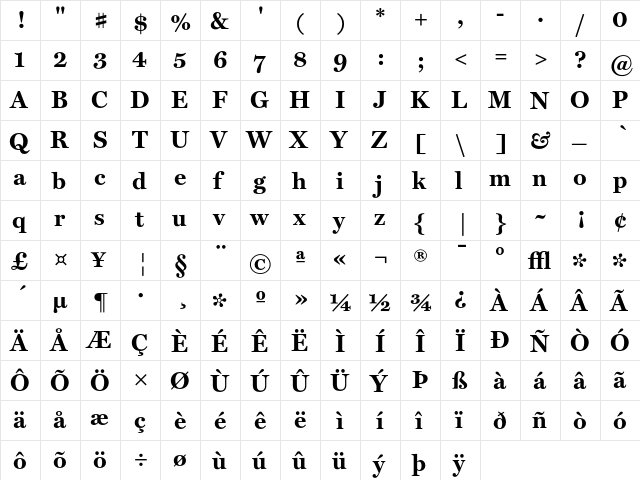
Miller Text Bold Font Preview
Miller Text Bold
Design Context for Miller Typeface
Miller offers clean, dependable letterforms without strong stylistic allegiance, making it a practical choice for designers who need flexibility. Its bold stroke weight gives it real presence on the page.
Pro Tip: Pair Miller with a font of contrasting weight or personality to build a more expressive typographic hierarchy.